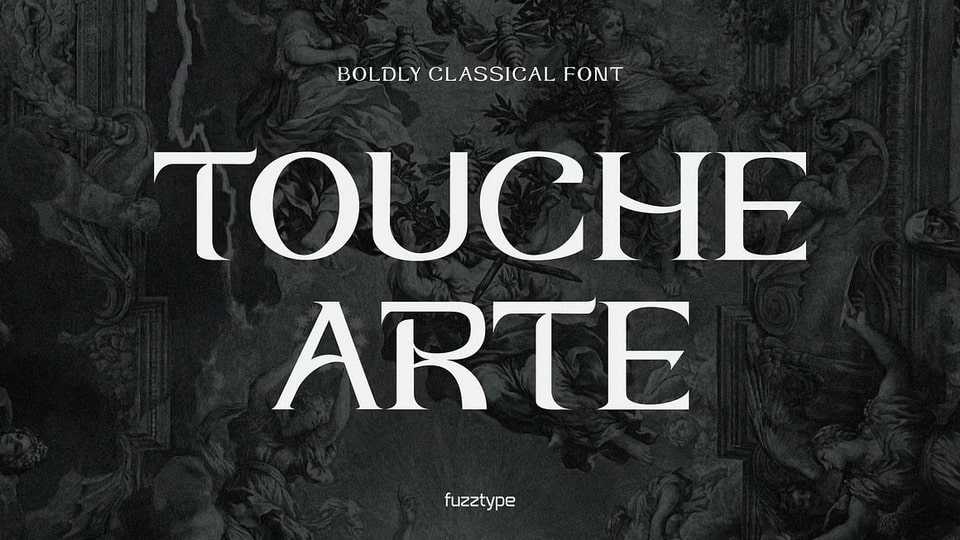
Touche Arte Font › Fontesk – Download Grátis
Download Touche Arte font, a serif typeface designed to embody elegance and sharpness, evoking a classic cinematic allure.
Designer: Fuzztype